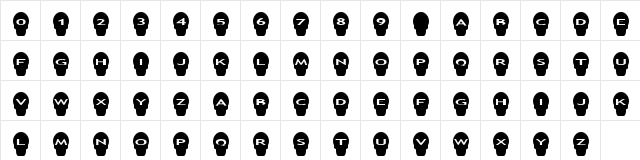
AlphaShapes skulls Normal
Design Context for AlphaShapes skulls
AlphaShapes skulls is a composed and adaptable typeface that performs quietly and consistently across a wide range of design contexts.